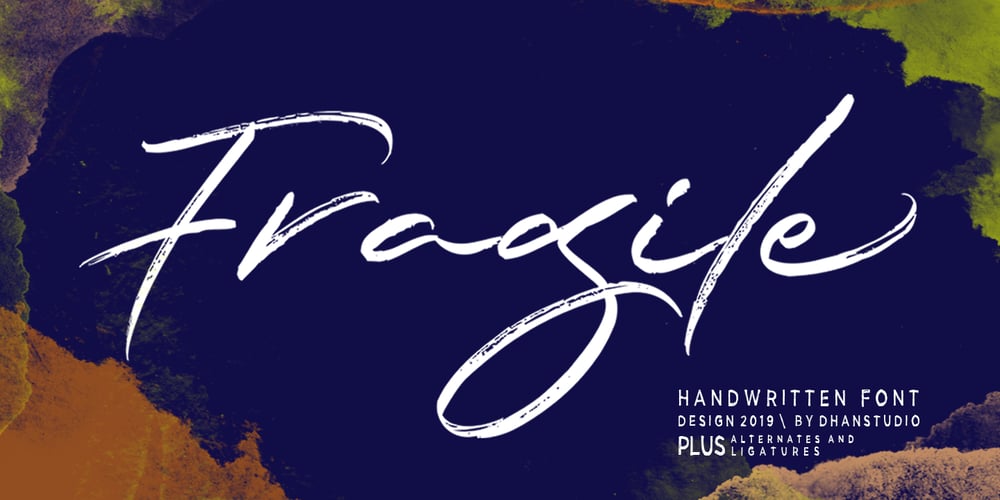
Fragile Script Font Family was designed by Mauli Zari and published by Dhan Studio. Fragile Script contains 1 styles and family package options. Fragile Script is textured brush font, featuring a contemporary approach to design, and a handmade, natural irregular baseline. It is also equipped with alternatives and ligatures. Suitable for use in title design as well as apparel, invitations, books tittle, stationery design, quotes, branding, logos, greeting card, t-shirt, packaging design, poster and more. Fragile Script includes a complete set of uppercase and lowercase letters, as well as multi-language support, numbers, punctuation.